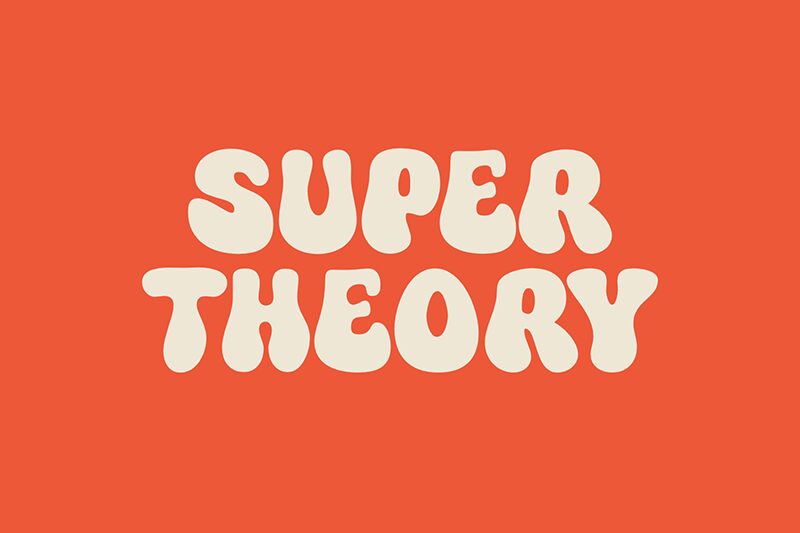
Super Theory
Super Theory font by fsuarez913 is a playful display typeface with a groovy and bold appearance. Designed with rounded shapes and soft edges, this font puts forward an approachable atmosphere while maintaining its modern aesthetic. Suitable for casual themes, the free font shines in lighthearted projects that need to stand out with style.